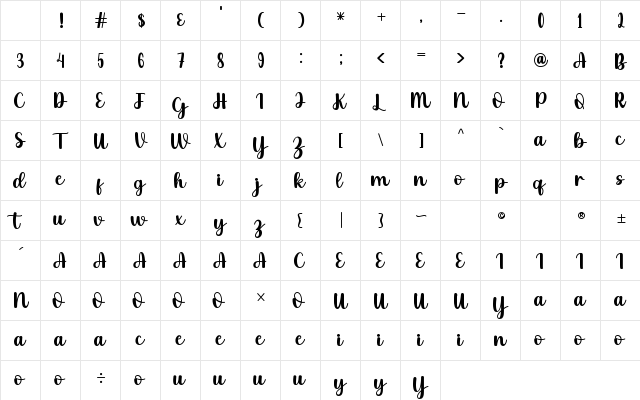
Complete Pinky Latte Script Regular glyph index. Displaying only characters natively supported by Pinky Latte Script Regular font.
Pinky Latte Script flows with the natural rhythm of handwritten lettering, making it ideal for designs that call for warmth and personal expression.
Font Pairing: Combine Pinky Latte Script with a simple geometric sans for maximum contrast - the tension between flowing curves and clean structure is a classic typographic pairing.
Pro Tip: Use Pinky Latte Script for short runs of text - names, titles, or taglines. Extended body copy in script faces tires the eye quickly.